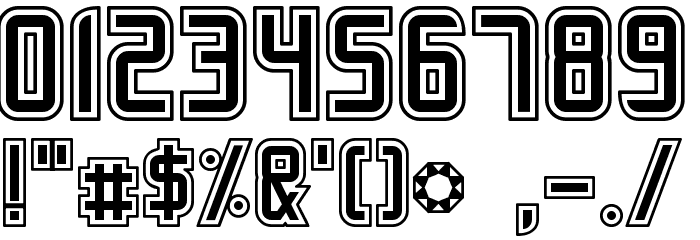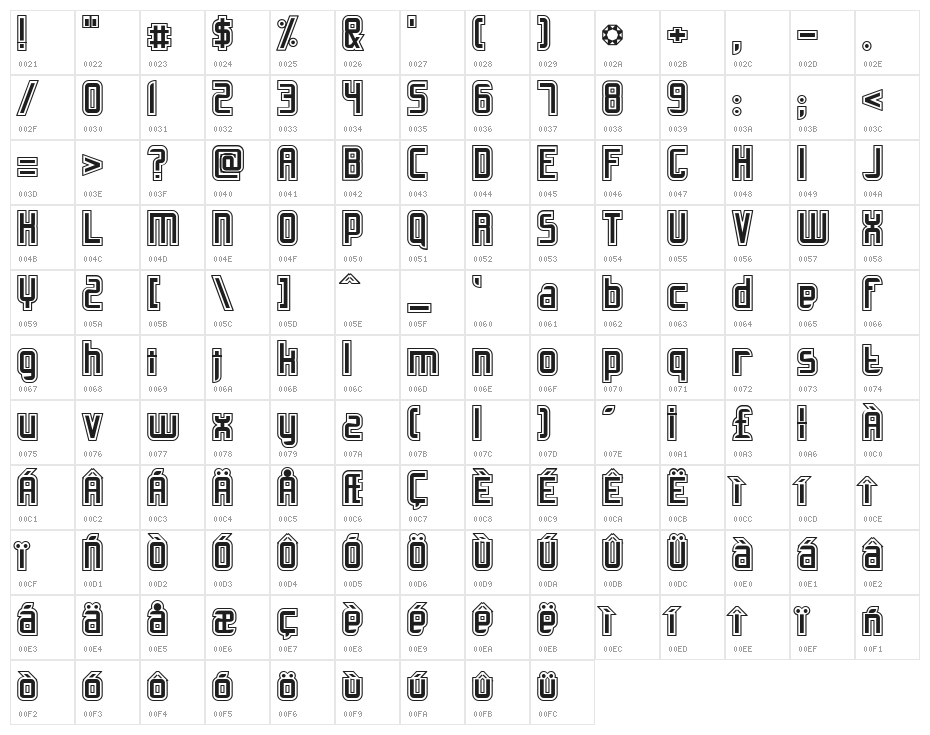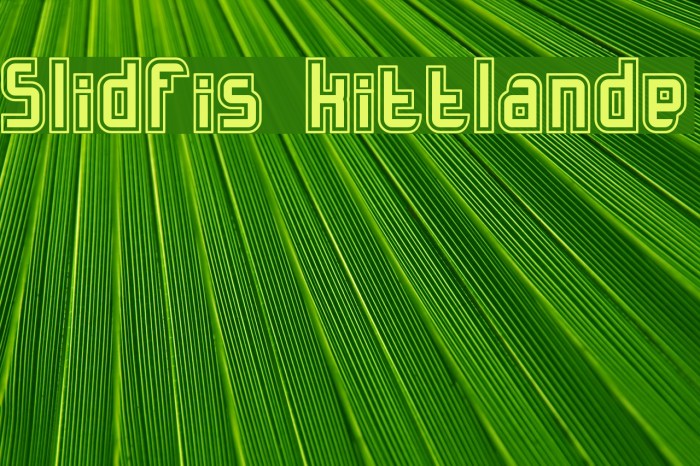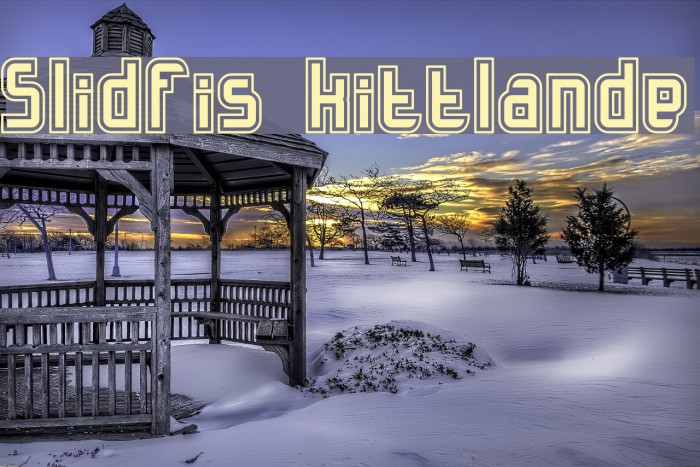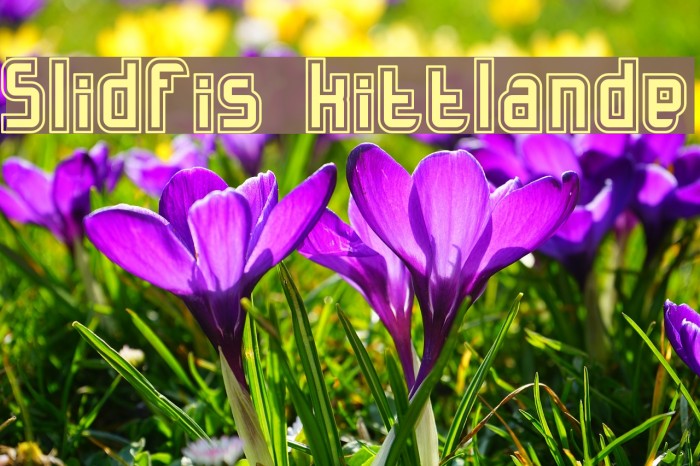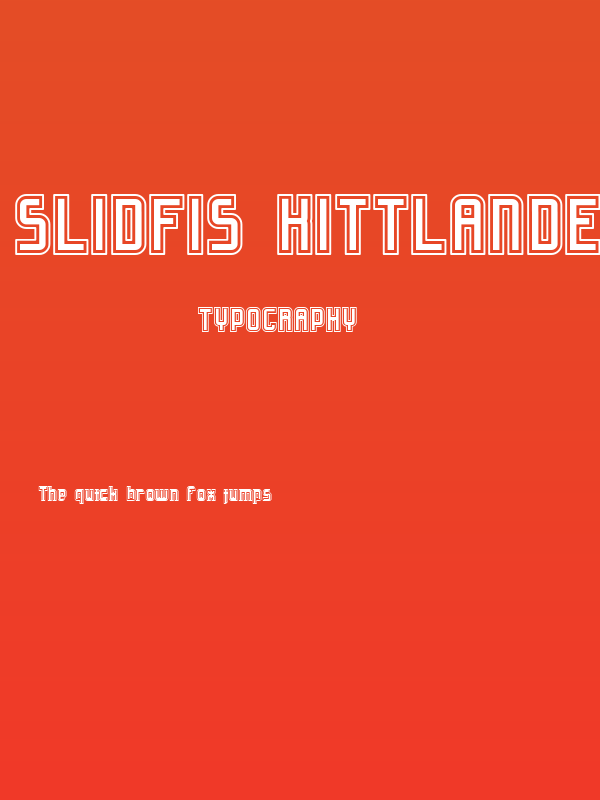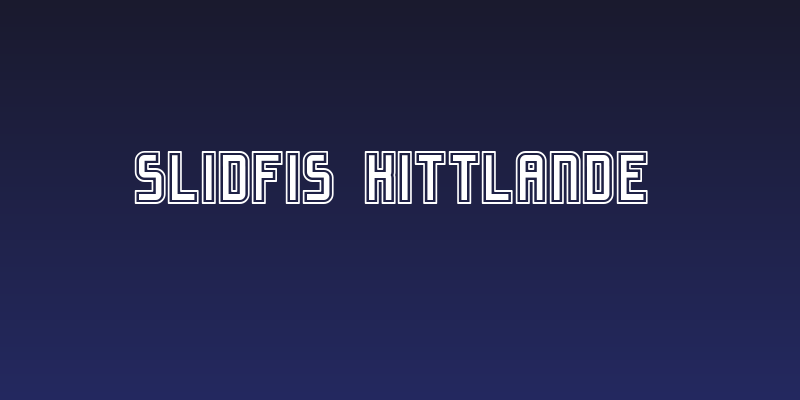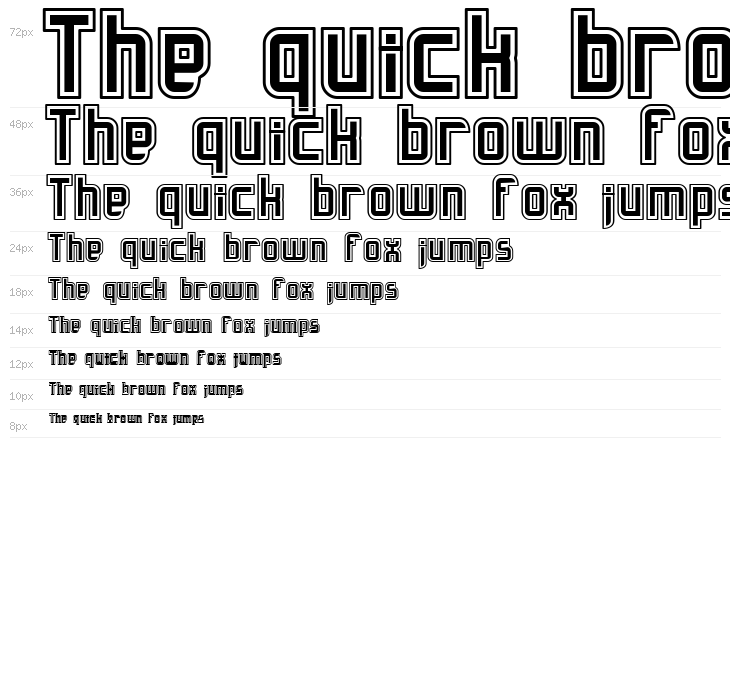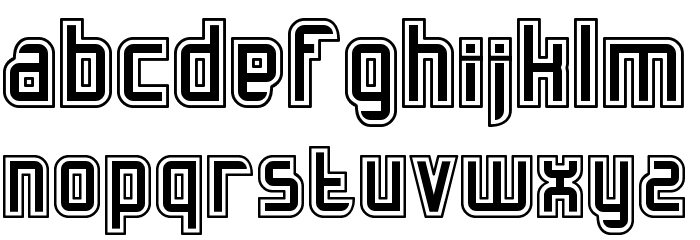
Slidfis kittlande Font
Slidfis kittlande Description
This font features a bold, geometric design with a distinct double-line outline that gives it a three-dimensional effect. The characters are structured with sharp angles and clean lines, creating a futuristic and modern appearance. The uppercase and lowercase letters maintain a consistent style, with the lowercase slightly smaller but equally bold. Numbers and special characters follow the same design principles, ensuring uniformity across all elements. The font's unique outline style makes it stand out, ideal for attention-grabbing designs.
| Proposed Projects | Ideal for posters, logos, video game graphics, and any project needing a modern, eye-catching typeface. |